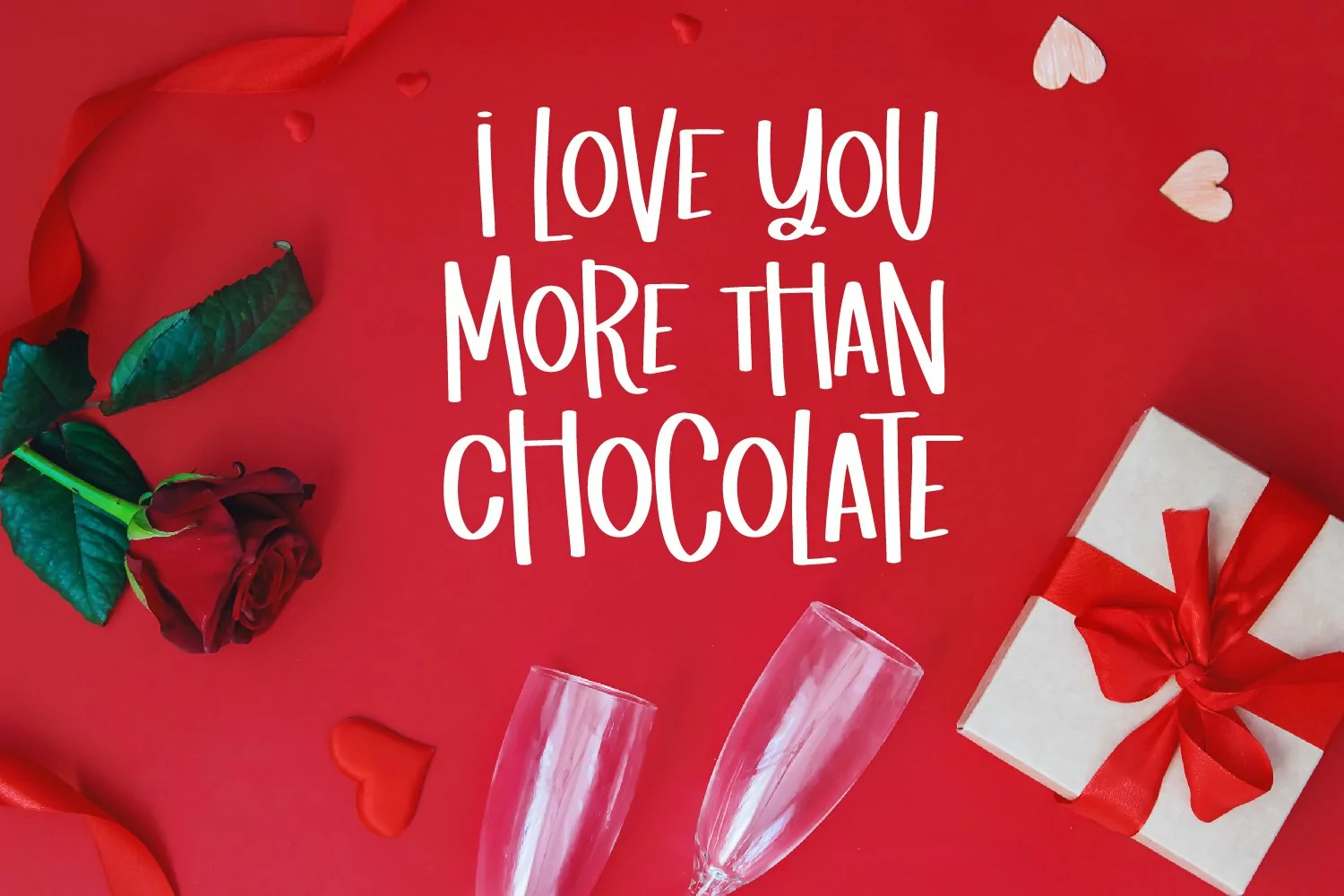
To create the bounce, use alternating caps - LiKe ThIs as there are smaller versions of each letter on lower case, and taller on upper case. :)
FBHelloBouncy